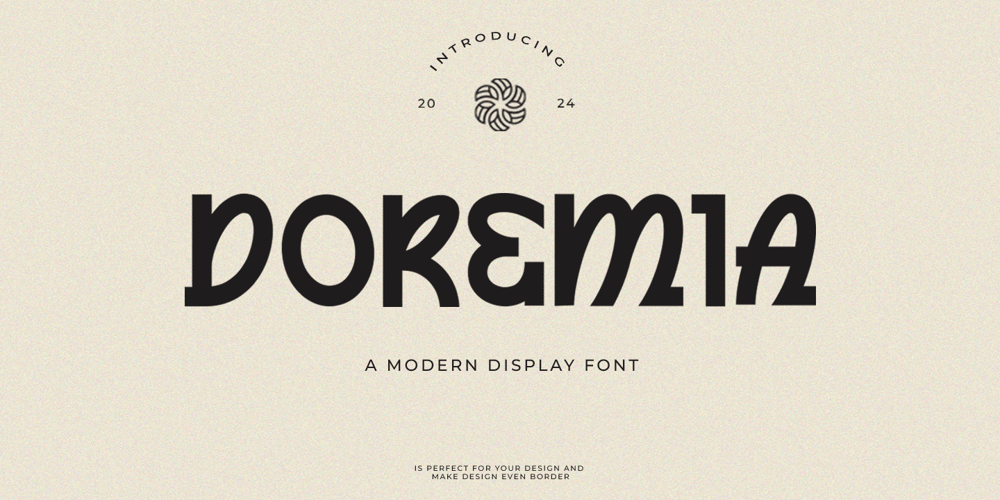
Doremia Font Family was designed by Yogiswhara Dio Prakoso Riadi and published by RagamKata. Doremia contains 2 styles and family package options. Doremia is Modern Display Font with experimental style look modern, fun, and experimental display font. Looks like made with a strong gesture. A bit constructive with cursive elements. use this font for anything beauty place for your logo, headline, cover book, magazine and many more.Thanks, Have a wonderful Day,Ragamkata